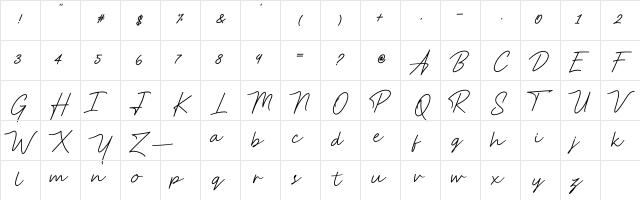
Anstery Script Regular
Design Context for Anstery Script Typeface
Anstery Script flows with the natural rhythm of handwritten lettering, making it ideal for designs that call for warmth and personal expression.
Font Pairing: Combine Anstery Script with a simple geometric sans for maximum contrast — the tension between flowing curves and clean structure is a classic typographic pairing.
Pro Tip: Pair Anstery Script with a clean sans-serif for supporting text. The contrast between fluid script and geometric structure creates an elegant typographic hierarchy.